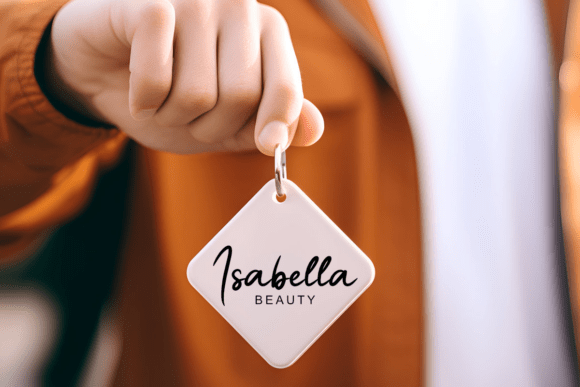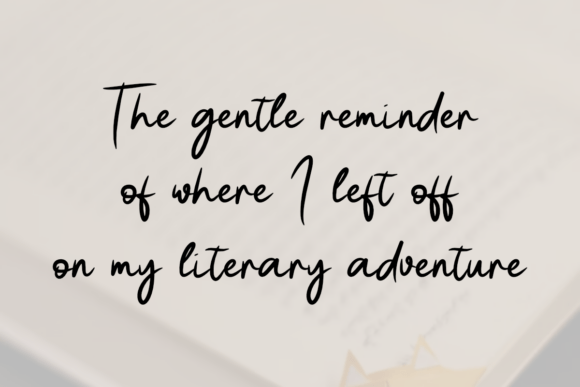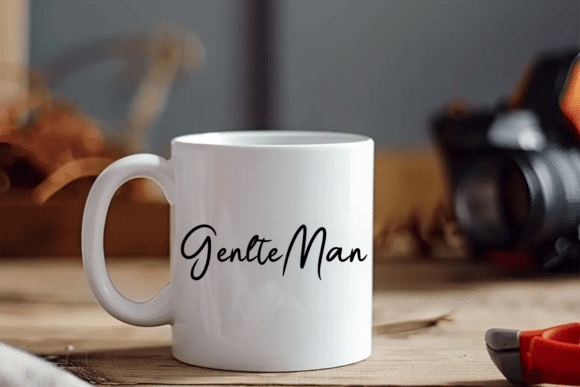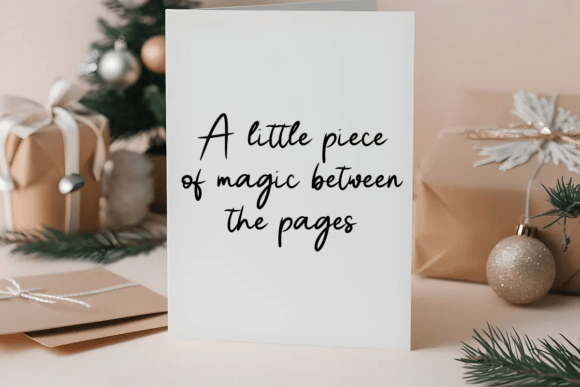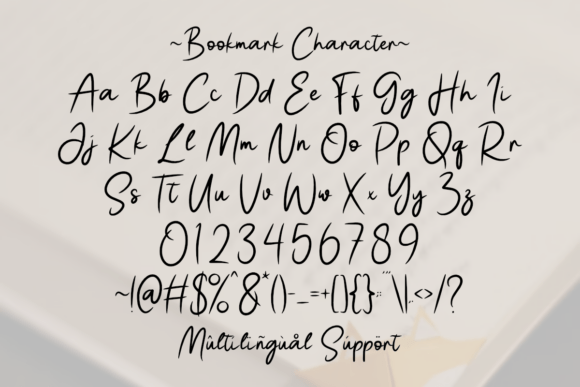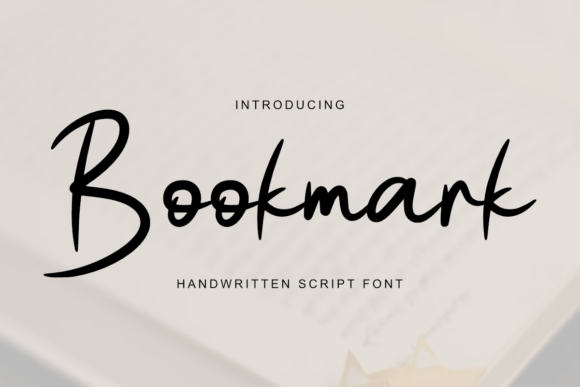
Introducing Bookmark Font: The Sweet and Cursive Handwritten Font for Your Design Needs
Are you looking for a font that can add a touch of elegance and romance to your designs? Look no further than Bookmark Font, a sweet and cursive handwritten font that is perfect for a variety of design projects. With its gentle and flowing script, Bookmark Font is sure to make your designs stand out and leave a lasting impression.
What Makes Bookmark Font Special?
Bookmark Font is a unique and versatile font that is designed to add a joyful and romantic touch to your designs. Its cursive and handwritten style makes it perfect for a wide range of projects, from branding and logos to wedding materials and greeting cards. The font’s gentle and elegant script is easy to read and will add a touch of sophistication to any design.
Bookmark Font is a versatile font that can be used for a variety of design projects, including:
• Branding: Use Bookmark Font to create a unique and memorable brand identity that will set you apart from the competition.
• Logos: Create a stunning logo that showcases your brand’s personality and style with Bookmark Font.
• Wedding Materials: Add a touch of romance and elegance to your wedding designs, including invitations, programs, and place cards.
• Greeting Cards: Create beautiful and heartfelt greeting cards for any occasion with Bookmark Font.
• Fashion: Use Bookmark Font to create stunning fashion designs, including lookbooks, catalogs, and advertisements.
• Marketing Promotion: Add a touch of elegance and sophistication to your marketing materials, including brochures, flyers, and posters.
Why Choose Bookmark Font?
There are many reasons why Bookmark Font is the perfect choice for your design needs. Here are just a few:
• Unique and Versatile: Bookmark Font is a unique and versatile font that can be used for a wide range of design projects.
• Elegant and Romantic: The font’s gentle and cursive script adds a touch of elegance and romance to any design.
• Easy to Read: Bookmark Font is easy to read, making it perfect for designs that require a clear and concise message.
• Fancy but Casual: Bookmark Font is perfect for designs that need to look fancy and elegant but still casual and approachable.
Tips for Using Bookmark Font
Here are a few tips for using Bookmark Font in your designs:
• Use it as a Headline Font: Bookmark Font is perfect for use as a headline font, adding a touch of elegance and sophistication to your designs.
• Pair it with Other Fonts: Bookmark Font pairs well with other fonts, including sans-serif and serif fonts.
• Experiment with Colors: Bookmark Font looks great in a variety of colors, from bold and bright to soft and pastel.
• Use it for Text: Bookmark Font is also great for use in body text, adding a touch of elegance and romance to your designs.
Font Name Bookmark Font
Author Letterayu
In conclusion, Bookmark Font is a sweet and cursive handwritten font that is perfect for a variety of design projects. Its gentle and elegant script adds a touch of romance and sophistication to any design, making it perfect for branding, logos, wedding materials, greeting cards, fashion, and marketing promotion. With its versatility and ease of use, Bookmark Font is a great choice for designers and crafters looking to add a touch of elegance and elegance to their designs.